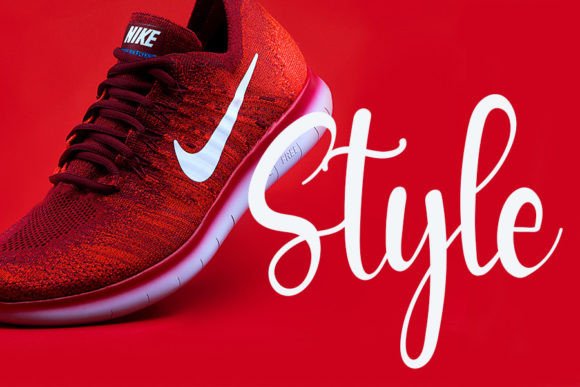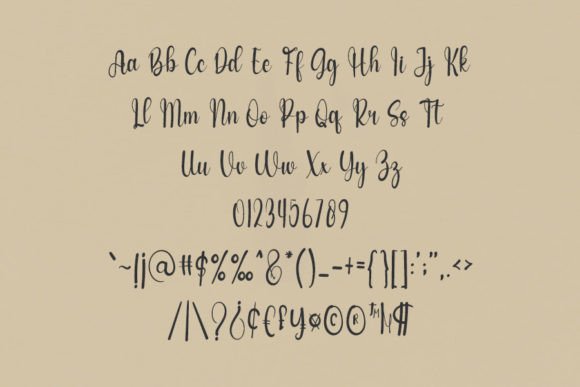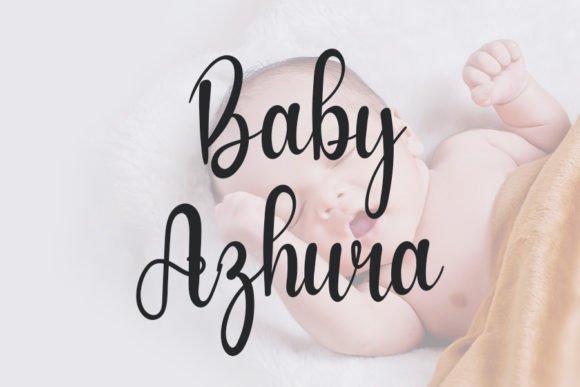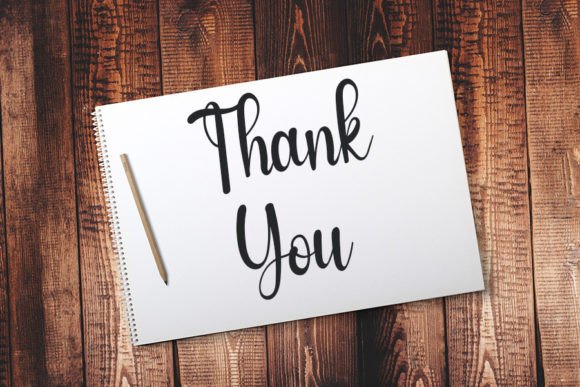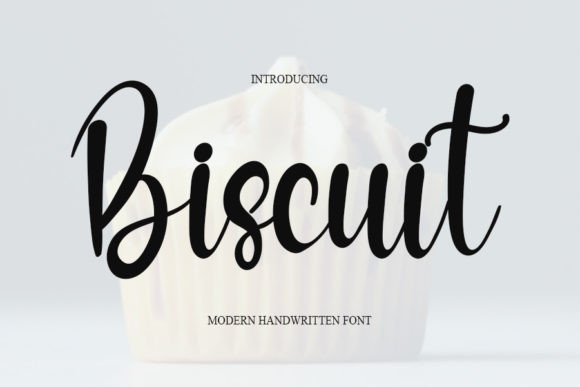
Biscuit Font: Elevate Your Designs with a Modern Handwritten Style
In the world of typography, a well-crafted font can make all the difference in the success of a design project. For designers and crafters looking to add a touch of elegance and sophistication to their work, the Biscuit font is an excellent choice. This cool handwritten font boasts a modern vibe and spotless form, inspired by the timeless beauty of classic calligraphy.
The Inspiration Behind Biscuit Font
Biscuit font was designed with the intention of capturing the essence of traditional calligraphy while infusing it with a contemporary twist. The result is a font that exudes a sense of balance and harmony, making it perfect for a wide range of design applications. Whether you’re working on a branding project, crafting a beautiful wedding invitation, or creating engaging social media content, Biscuit font is sure to elevate your designs to the next level.
Key Features of Biscuit Font
So, what sets Biscuit font apart from other fonts in its category? Here are some of its key features:
- Balanced and Varied: Biscuit font strikes the perfect balance between being too thin and too thick. Its varied strokes add a touch of authenticity and flair to your designs.
- Modern Vibe: With its clean lines and spotless form, Biscuit font is perfect for designers looking to create modern and sleek designs.
- Handwritten Style: The font’s handwritten style gives it a personal and approachable feel, making it ideal for designs that require a touch of warmth and personality.
- Inspired by Classic Calligraphy: Biscuit font draws inspiration from traditional calligraphy, ensuring that your designs exude a sense of timelessness and sophistication.
Use Cases for Biscuit Font
Biscuit font is a versatile font that can be used in a variety of design applications. Here are some use cases to consider:
- Branding and Logo Design: Use Biscuit font to create a unique and memorable brand identity that stands out from the competition.
- Wedding and Event Invitations: Add a touch of elegance and sophistication to your wedding or event invitations with Biscuit font.
- Social Media Graphics: Use Biscuit font to create engaging social media graphics that capture the attention of your audience.
- Packaging Design: Elevate your packaging design with Biscuit font, perfect for luxury brands and products.
Tips for Using Biscuit Font Effectively
To get the most out of Biscuit font, here are some tips to keep in mind:
- Pair it with Other Fonts: Experiment with pairing Biscuit font with other fonts to create a unique and visually appealing typography combination.
- Use it for Headings and Titles: Biscuit font is perfect for headings and titles, where its elegant and sophisticated style can shine.
- Adjust Font Size and Color: Don’t be afraid to experiment with different font sizes and colors to find the perfect combination for your design.
In conclusion, Biscuit font is a beautiful and versatile font that can elevate your designs to new heights. Its modern vibe, balanced and varied strokes, and handwritten style make it perfect for a wide range of design applications. Whether you’re a designer or crafter, Biscuit font is an excellent choice for anyone looking to add a touch of elegance and sophistication to their work.